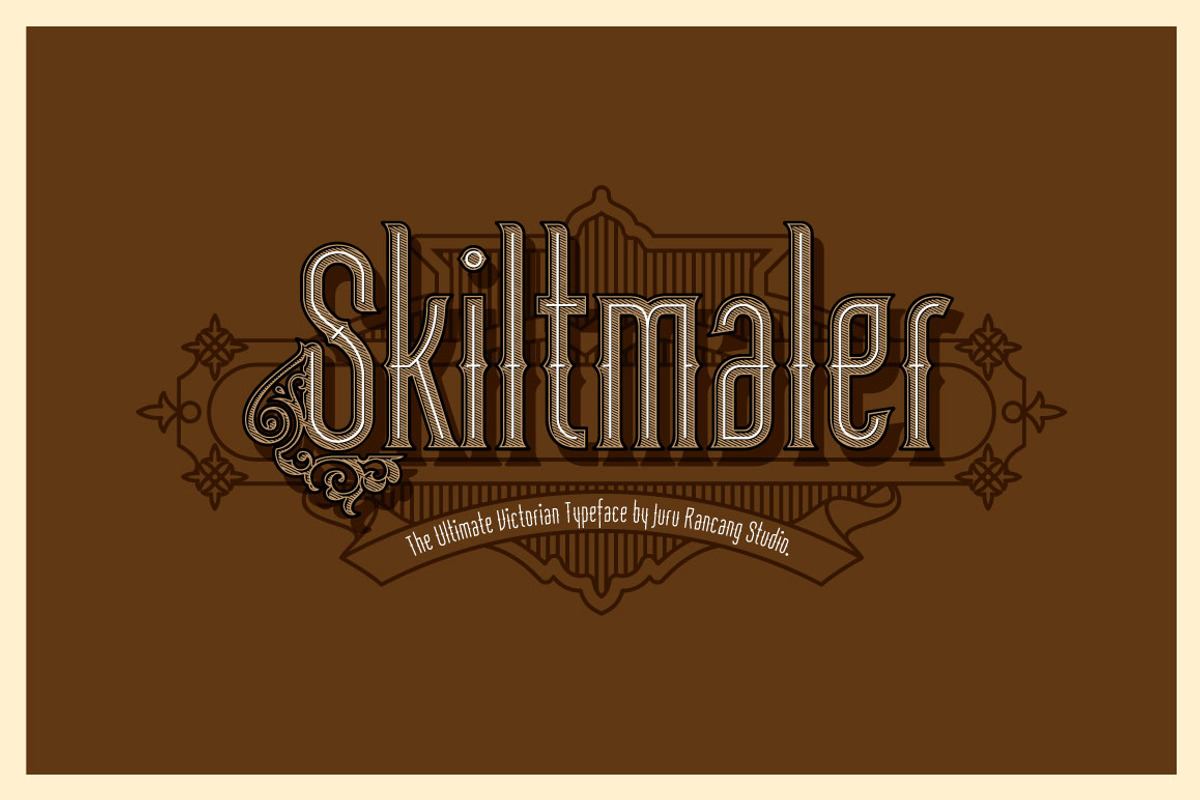
Skiltmaler Typeface Free Download is a vintage-inspired display font rooted in classic sign painting traditions. Please note: you must purchase this font for commercial use, but you can test it through a free download. With its bold strokes, ornamental flair, and retro craftsmanship, Skiltmaler is ideal for signage, logos, packaging, tattoo-style artwork, and any project needing an old-world aesthetic with modern functionality.
This typeface brings personality and heritage into your designs, making it a favorite for barbershop branding, craft product labels, and nostalgic editorial work. Whether you're aiming for a timeless vintage feel or an eye-catching headline, Skiltmaler Typeface Free Download gives your typography a handcrafted, artistic edge. It works seamlessly with Adobe Illustrator, Photoshop, and Canva, offering flexibility for both print and digital designs. Download it now for personal use and give your creative projects a taste of classic signwriting charm.